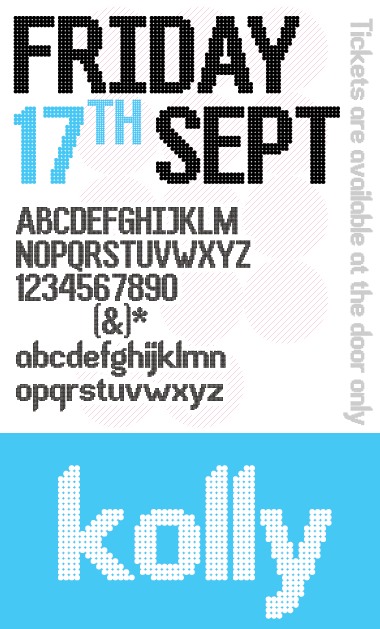
I love pixel font. I try to be in the middle, a pixel font who look like a vector one, but I kept the roughtness and imperfection of pixel. =================================== I start with letter lbd...I wanted a chop top or oblique on the stem I also put big diatrics to give some "Antler" to the font. =================================== I still have to balance some glyph...I have a hard time with the w. All crits are welcome
I like "B" very much and "a". You should make "P" to look alike "B" with this small cut at the bottom. Capital letters should be a little more expanded. 9.
@Neoqueto: hmmmm! I think you're right... First of all I wanted to create a narrow font... and I lost the focus while the creation process. My AMWXY etc are to wide for the rest of uppercase.
Now I have two choices: expend the narrowed one or condense the wider one.
I'll manage that later I'm to tired for now. I try the P just like you suggest, and I'm not convince, I'll push a sample of it.
Very simple but quite awesome.
nice dot matrix font
@Thalamic thanks for your comment, sometime back to simple thing is good for mental health ;)
Awesome font and awesome idea! 10/10 + fav